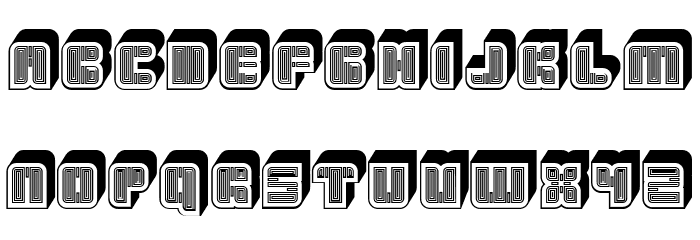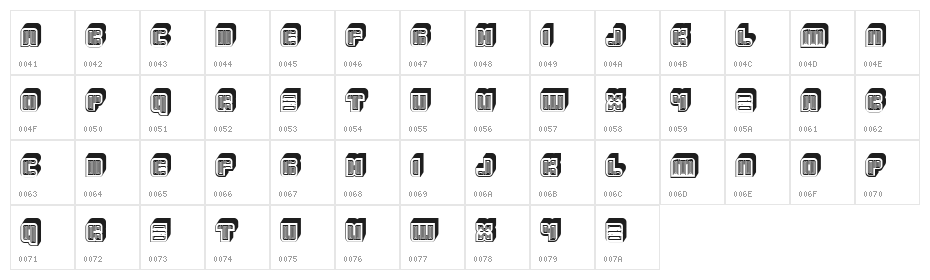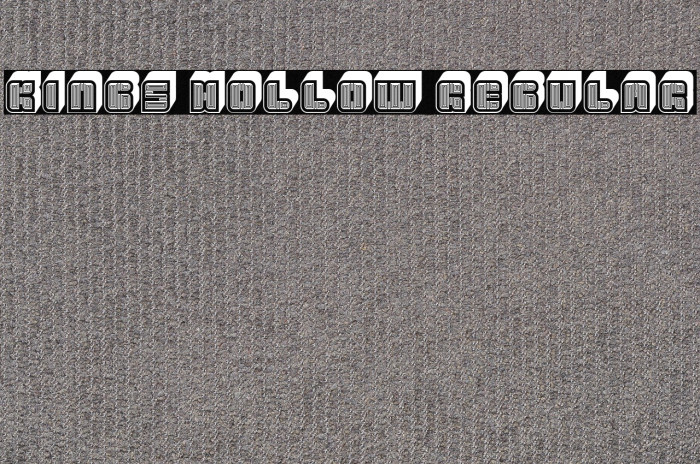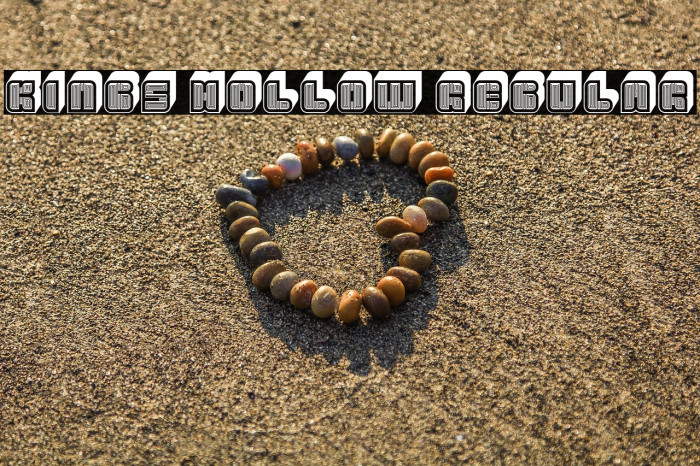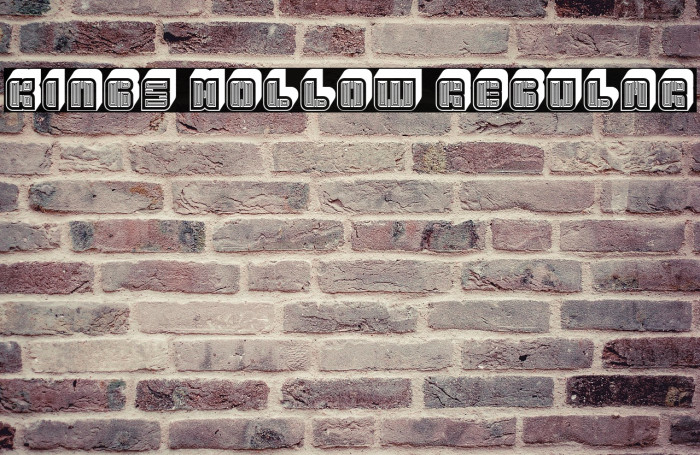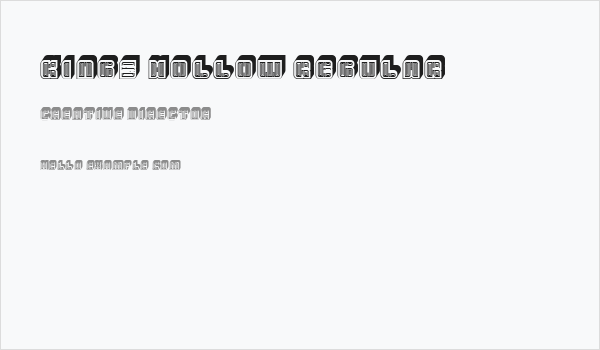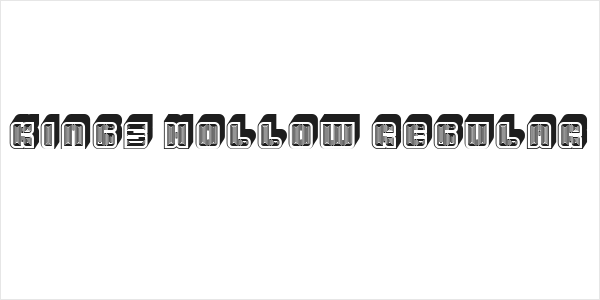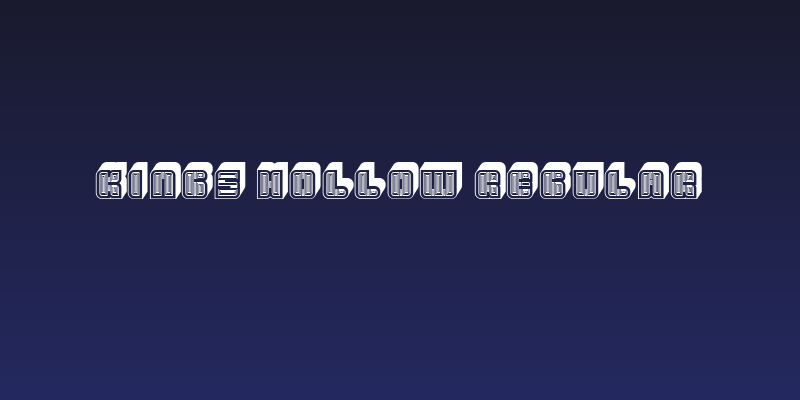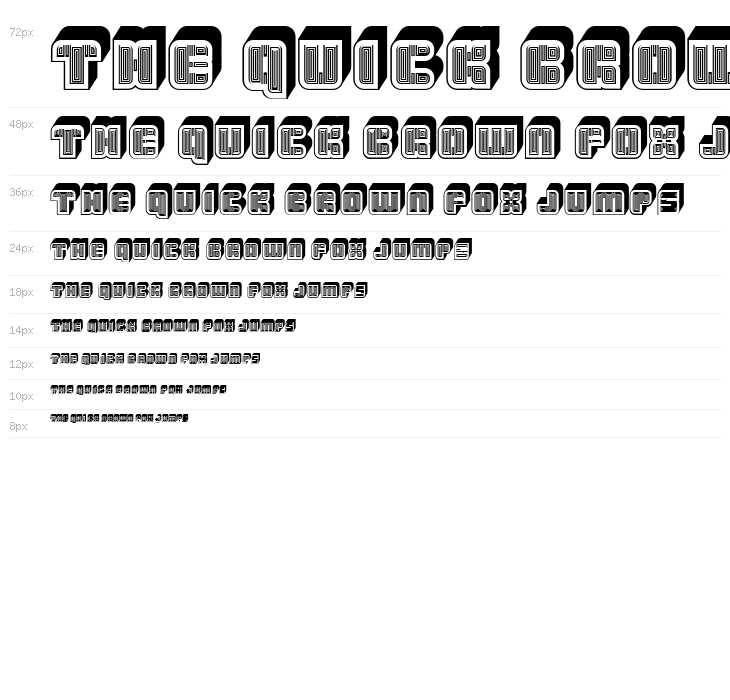
Kings Hollow Regular Font
This font is a bold and decorative typeface with a unique hollow design. Each character is outlined with a thick border, creating a striking contrast between the filled and empty spaces. The letters have a geometric structure with rounded edges, giving them a modern yet playful appearance. The font's style is reminiscent of retro or vintage signage, making it ideal for projects that require a bold statement. Its distinct appearance ensures that it stands out in any design, making it perfect for eye-catching headlines or logos.
A bold, decorative font with a hollow, geometric design and thick outlines.
- Proposed Projects: Ideal for retro-themed posters, eye-catching headlines, logos, and branding materials.
- Overall Style: Retro, Decorative